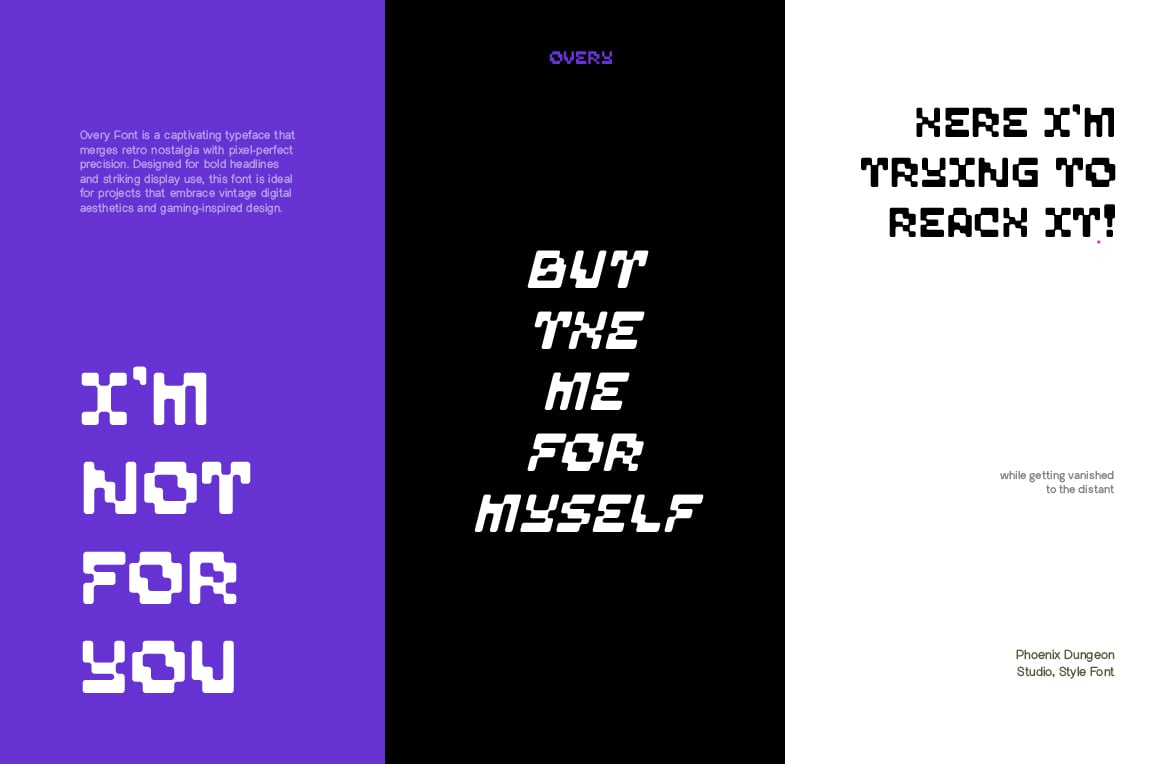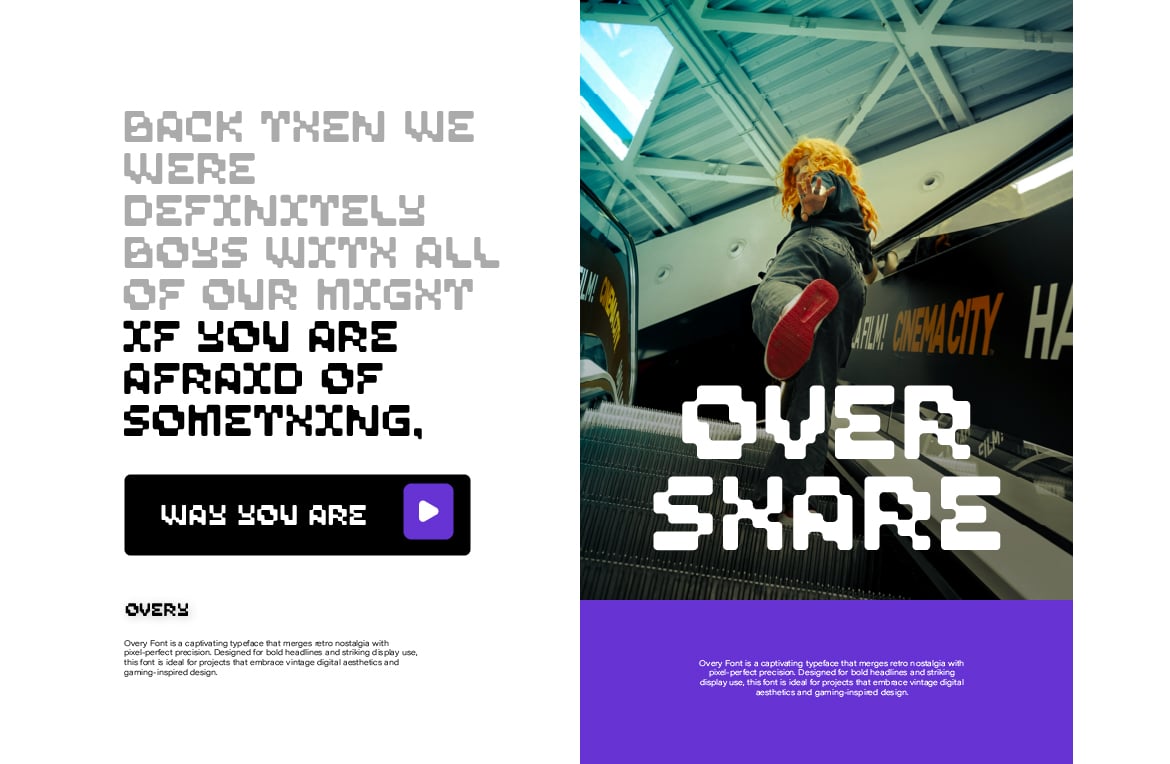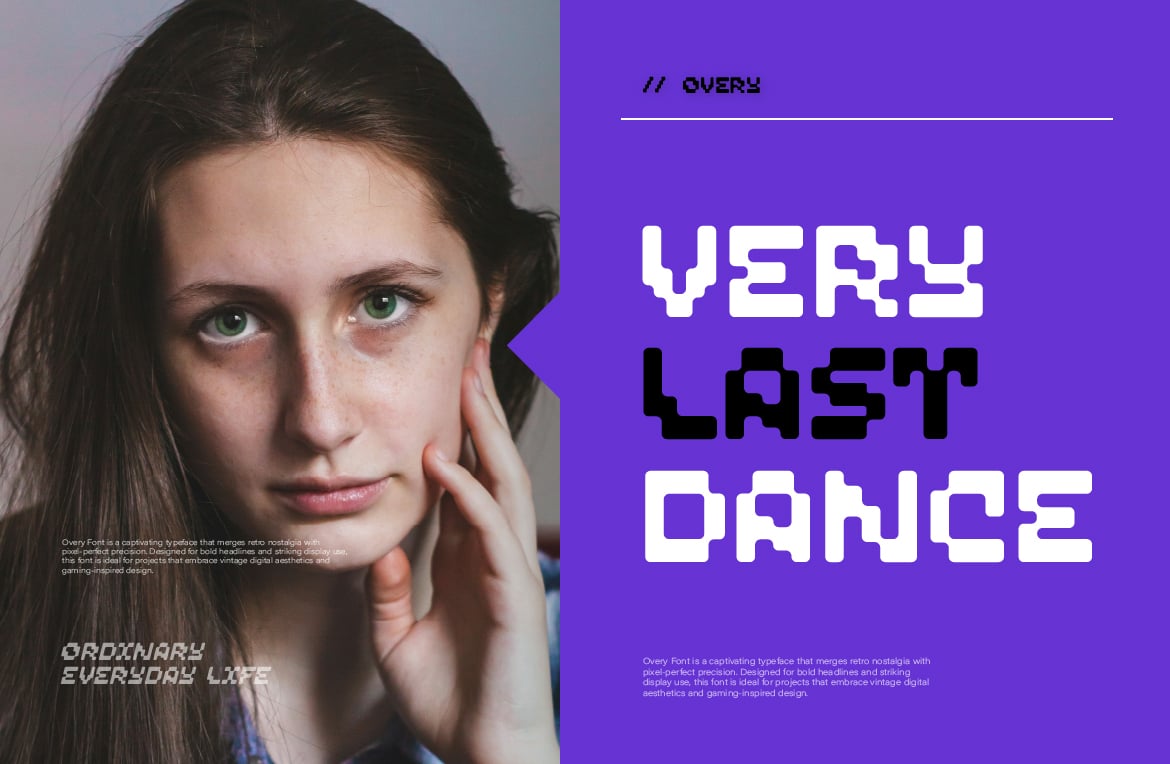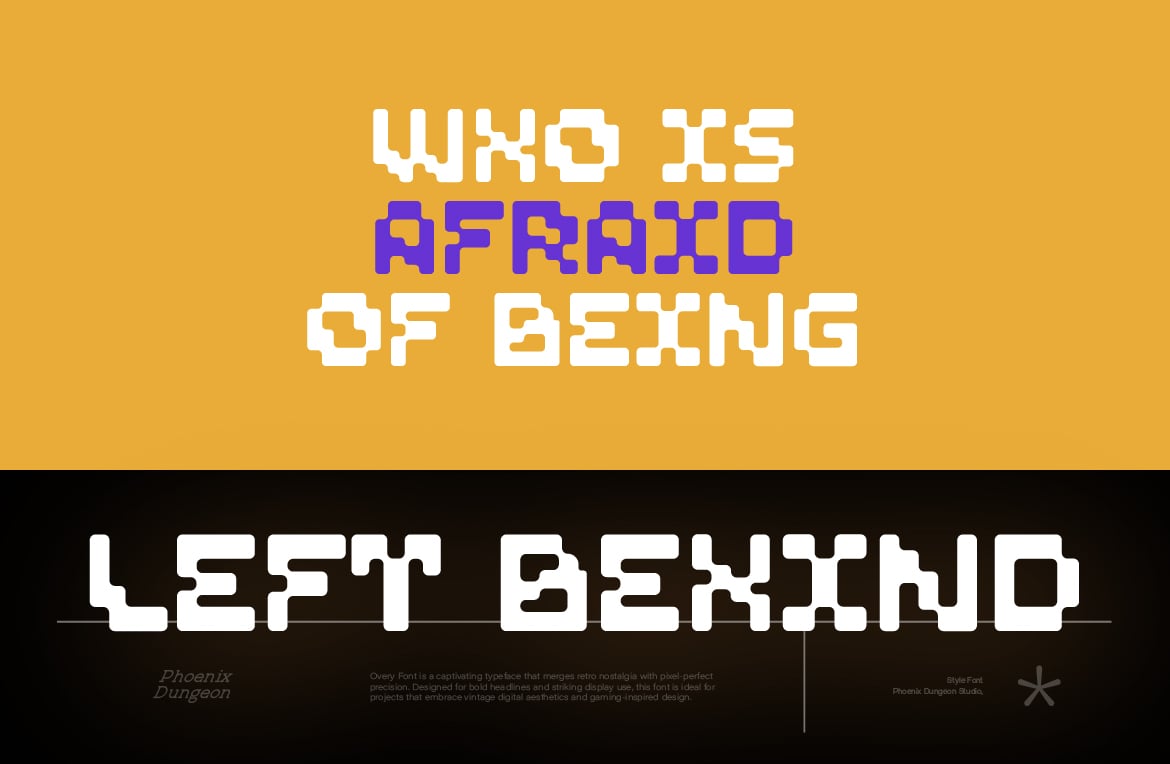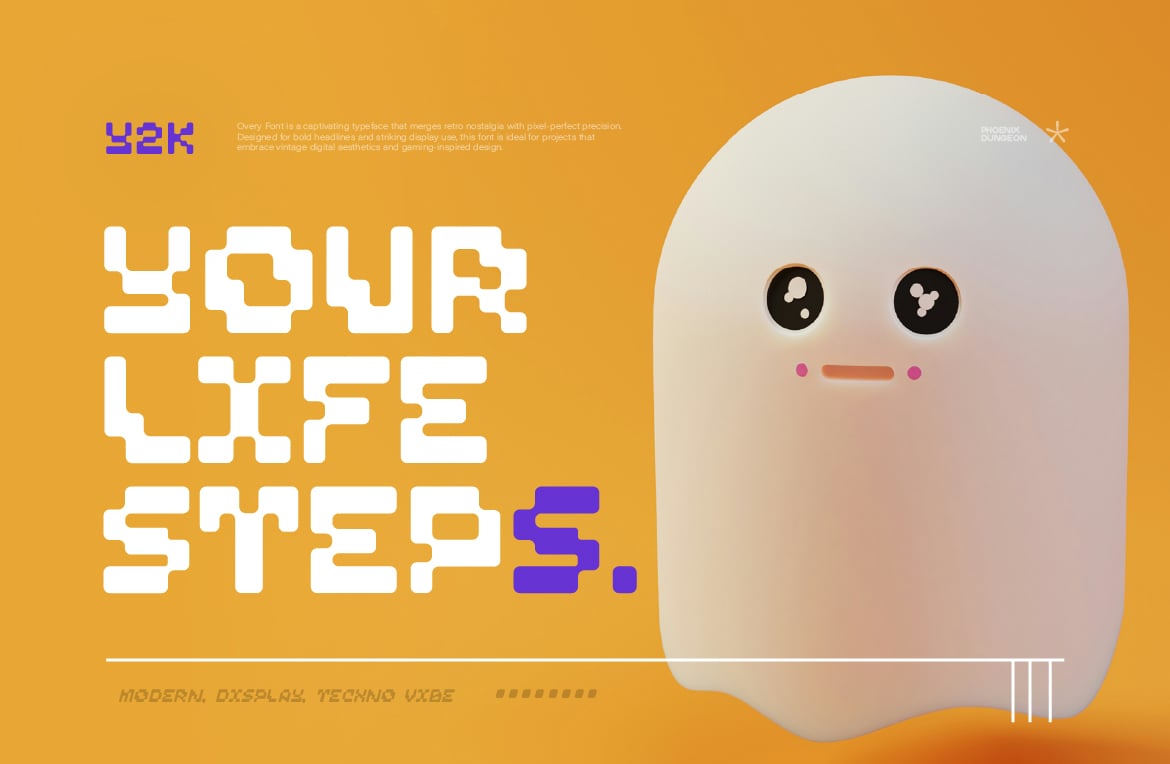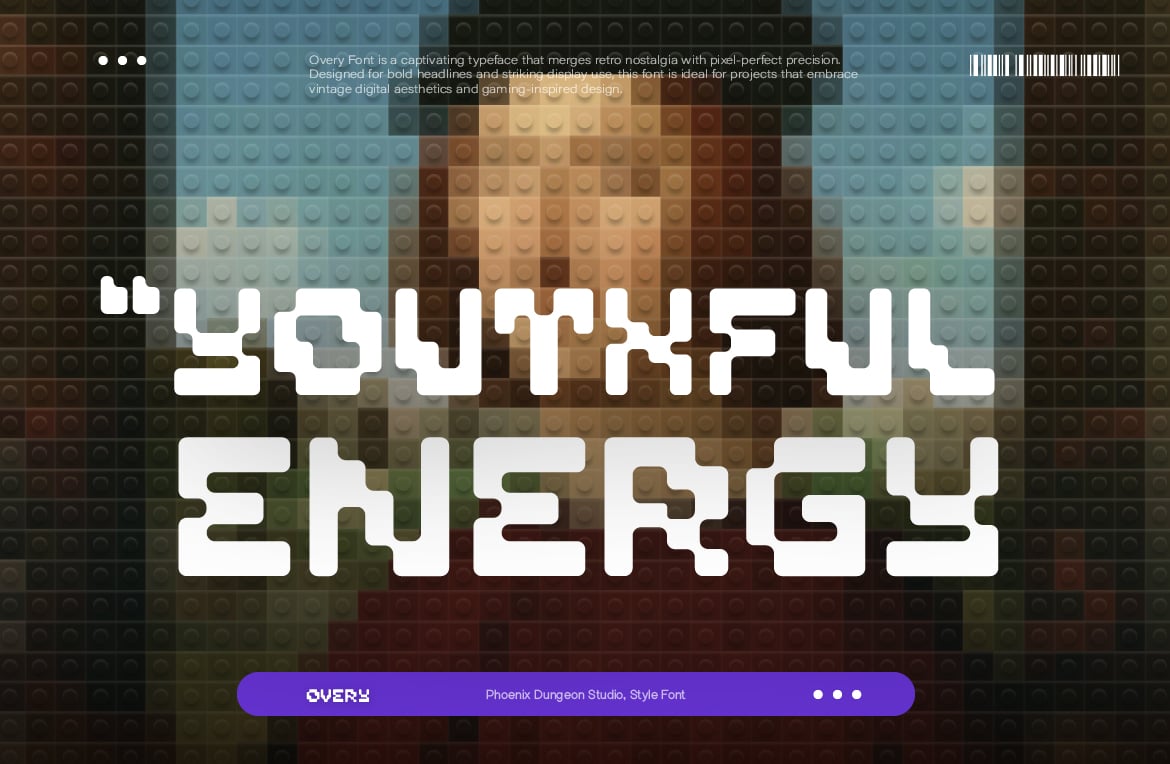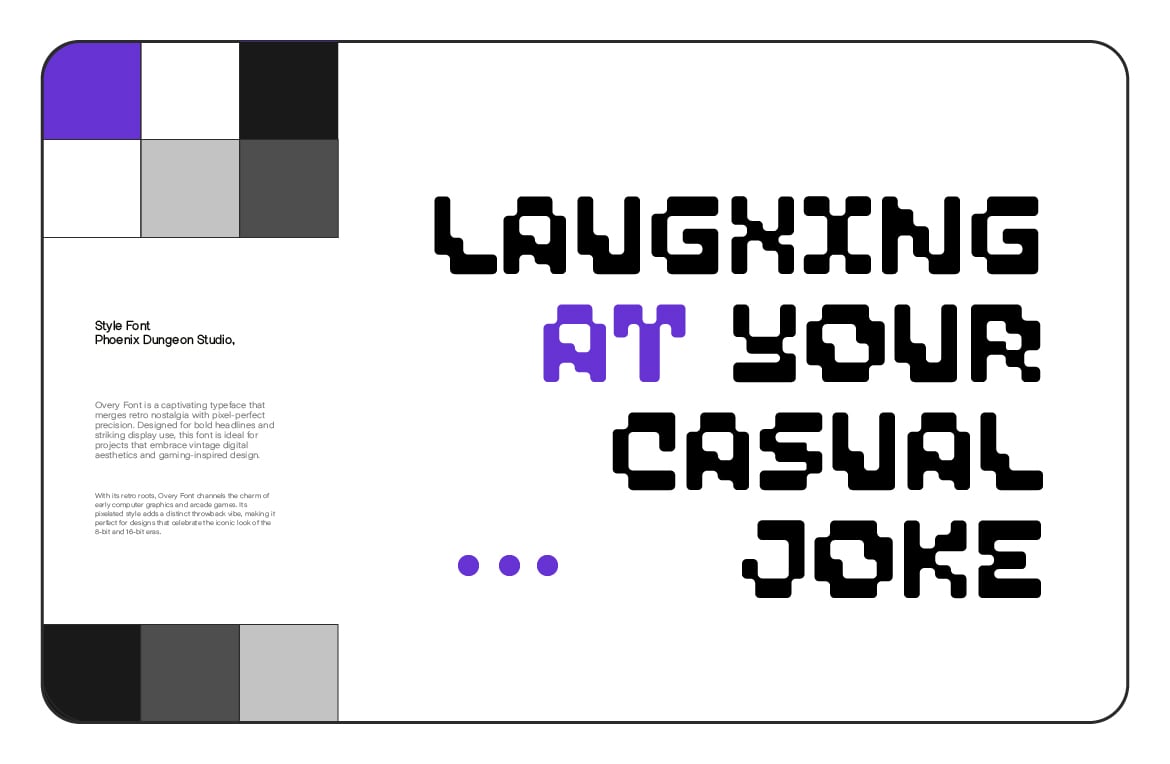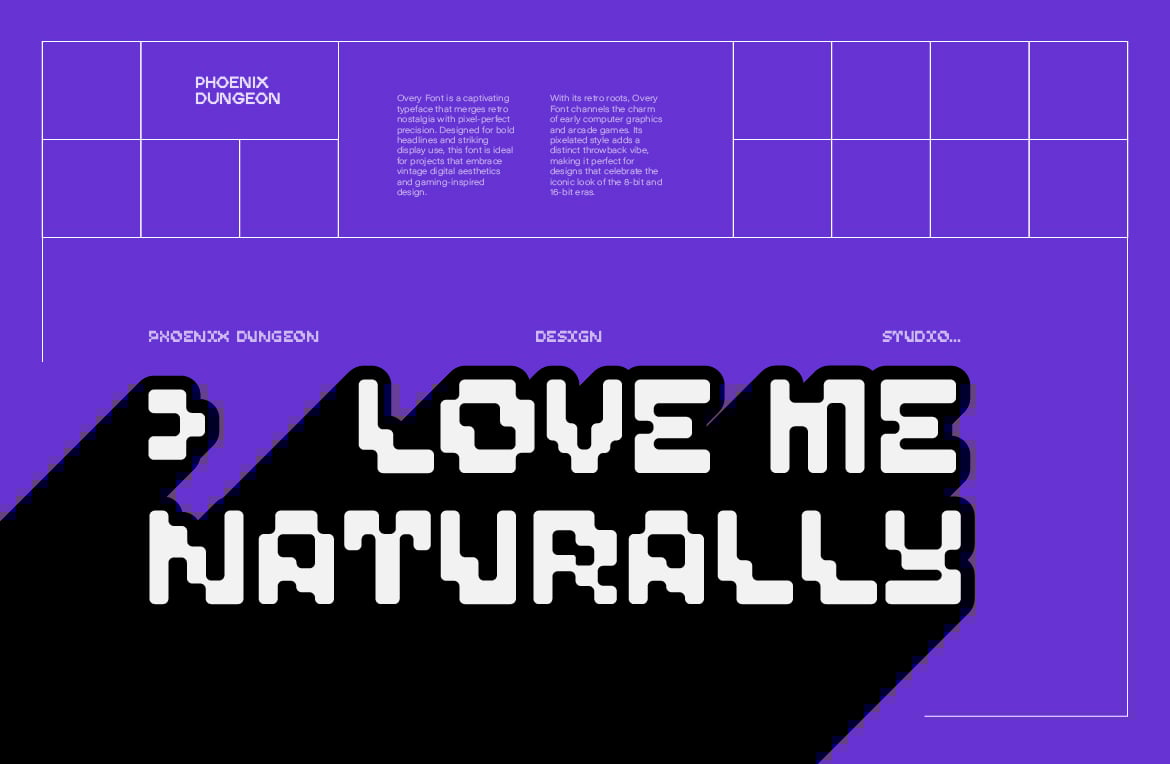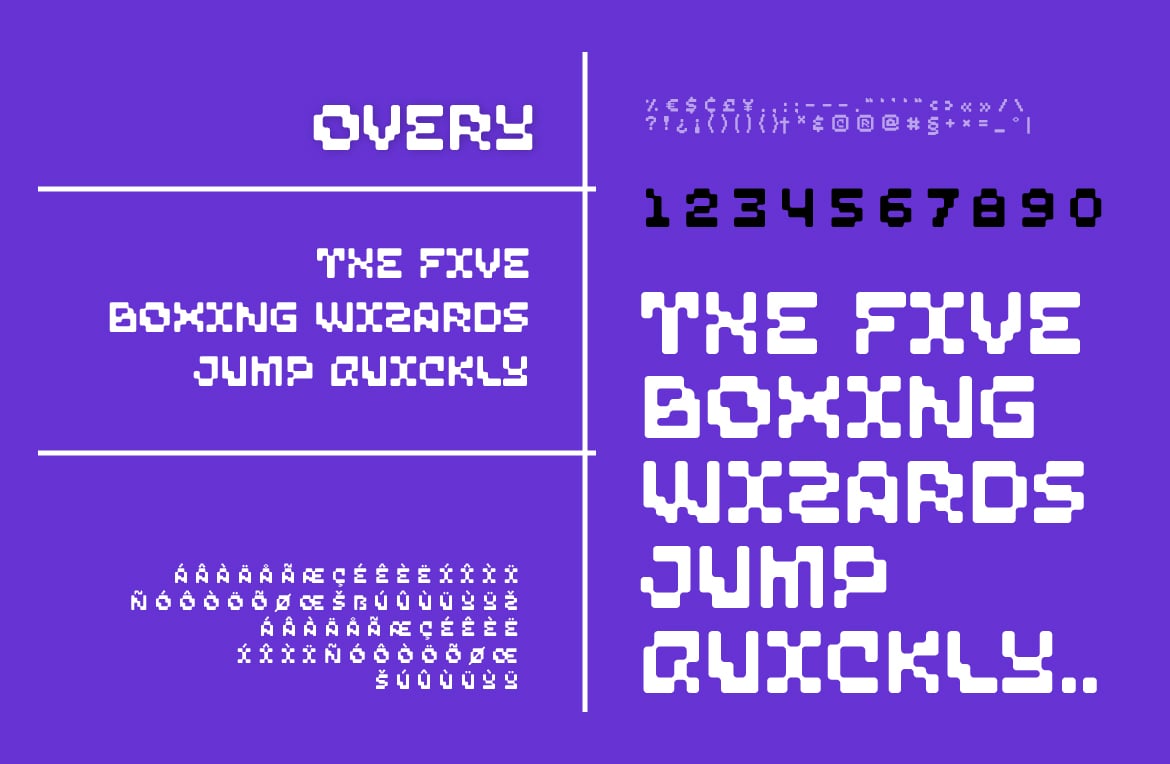
Overy Font
Overy Font is a captivating typeface that merges retro nostalgia with pixel-perfect precision. Designed for bold headlines and striking display use, this font is ideal for projects that embrace vintage digital aesthetics and gaming-inspired design.
With its retro roots, Overy Font channels the charm of early computer graphics and arcade games. Its pixelated style adds a distinct throwback vibe, making it perfect for designs that celebrate the iconic look of the 8-bit and 16-bit eras.